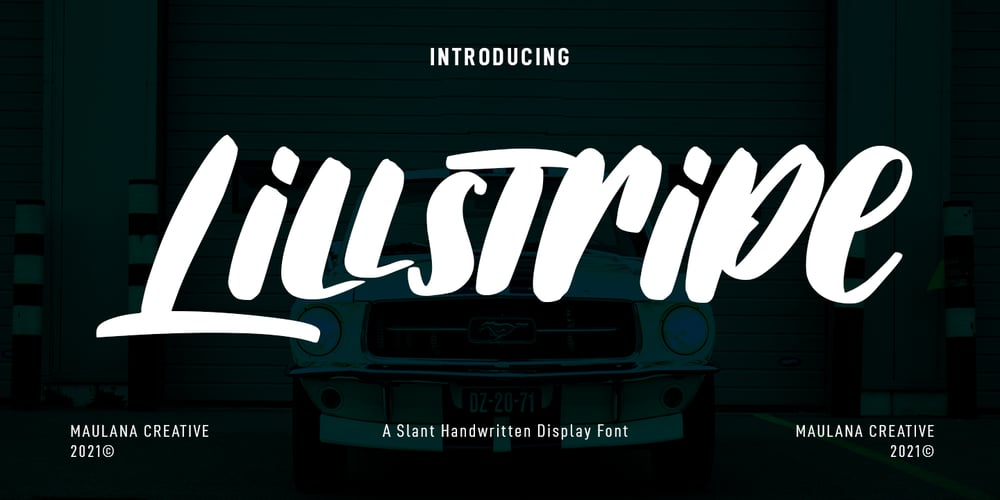
Lillstripe Font Family was designed by Gilang Maulana and published by Maulana Creative. Lillstripe contains 1 styles and family package options. Lillstripe is a modern fancy handwritten font. With bold contrast stroke, fun character with some of ligatures. To give you an extra creative work. Lillstripe font support multilingual more than 100+ language. This font is good for logo design, Social media, Movie Titles, Books Titles, a short text even a long text letter and good for your secondary text font with sans or serif. Make a stunning work with Lillstripe font. Cheers, MaulanaCreative